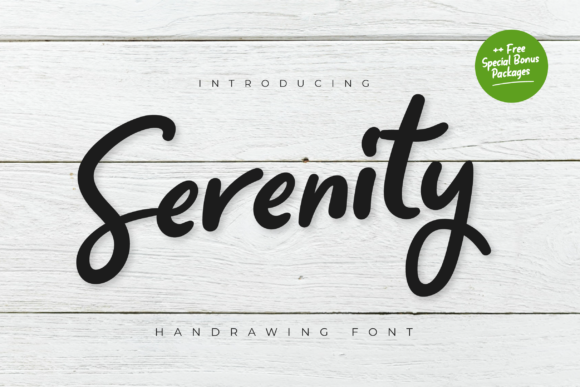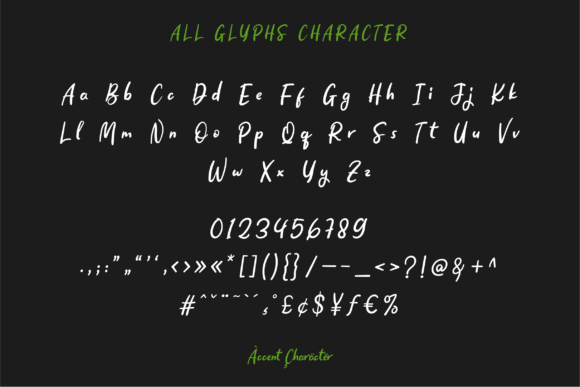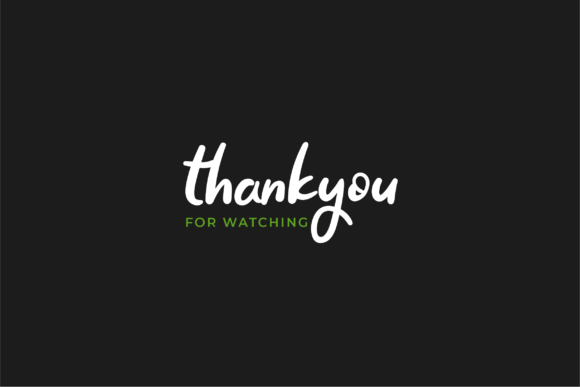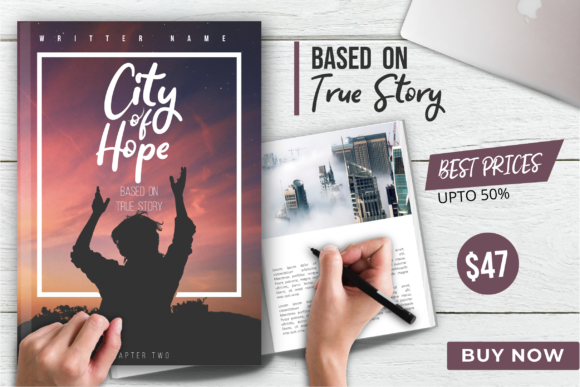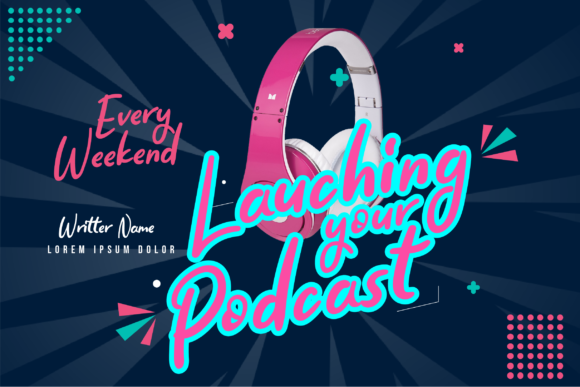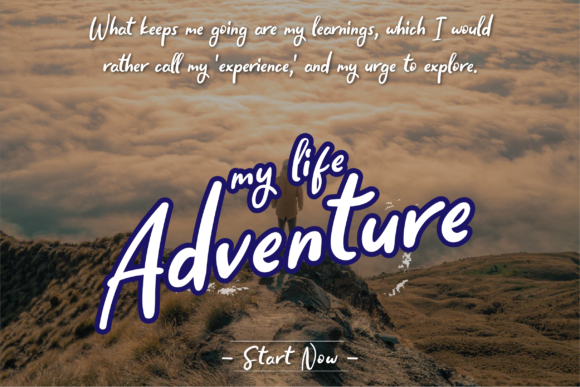
Serenity: Embrace the Flowing Elegance of a Timeless Handwritten Font
Introducing Serenity, a font that gracefully embodies flowing elegance in every stroke. With its handwritten style, it offers the perfect blend of sophistication and charm, making it a delightful choice for your favorite projects. Prepare to be captivated by its incredibly distinct allure as it infuses your creations with a touch of timeless beauty, allowing you to craft truly spectacular designs that leave a lasting impression.
The allure of Serenity lies in its seamless flow and elegant touch. Each letter dances effortlessly, creating a harmonious rhythm that captures the essence of grace.
Designing with Serenity is a delightful journey. Whether you’re creating enchanting wedding invitations, designing heartfelt notes, or crafting artistic prints, this font elevates your work to a level of refined beauty.
Expressing sentiments becomes an art form with Serenity. Its flowing nature breathes life into your words, making them resonate with emotions that touch the soul.
Gorgeous designs come to life with Serenity’s timeless style. Whether you’re creating elegant logos, crafting social media graphics, or designing book covers, this font adds a touch of sophistication that captivates the eye.
For businesses seeking a brand identity that stands out, Serenity is the answer. Its elegant and distinct appearance communicates a sense of creativity and professionalism, making it a versatile choice for various industries.
And when it comes to unleashing your creativity, Serenity won’t disappoint. Its timeless charm allows it to complement a wide array of design concepts, from classic and refined to modern and chic.
In conclusion, Serenity is more than just a font; it’s a flowing masterpiece of elegance. Embrace its distinct and timeless charm, and let it become the muse for your most cherished projects. Whether you’re celebrating love, expressing gratitude, or building a captivating brand identity, Serenity will be your loyal companion, adding a touch of sophistication and grace. Allow this font to unlock the full potential of your creativity and watch as your designs come alive with the flowing elegance of Serenity. Fall in love with its timeless beauty, and let it be the guiding light that leads you to create truly spectacular designs that stand the test of time.